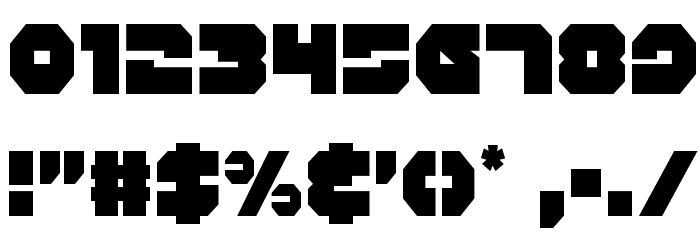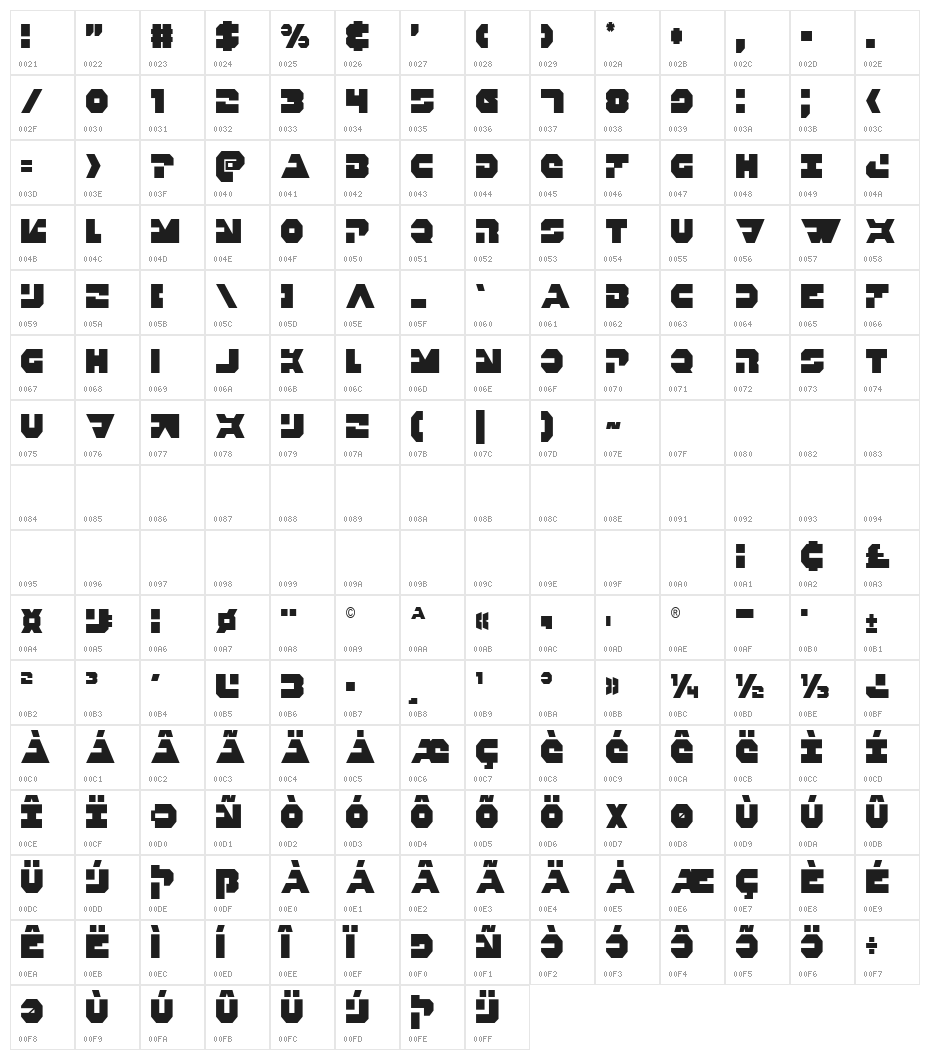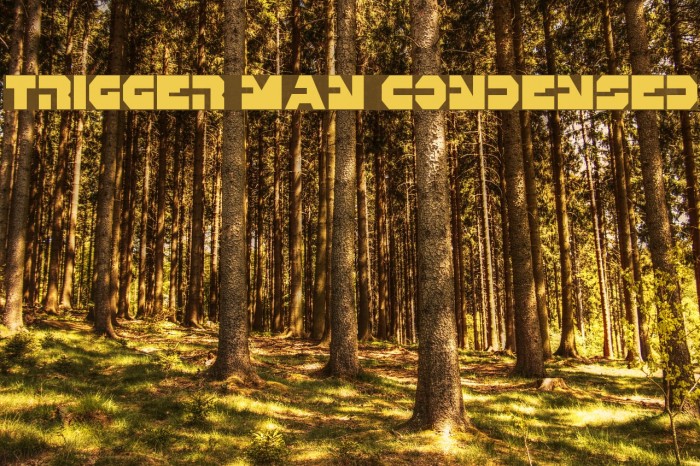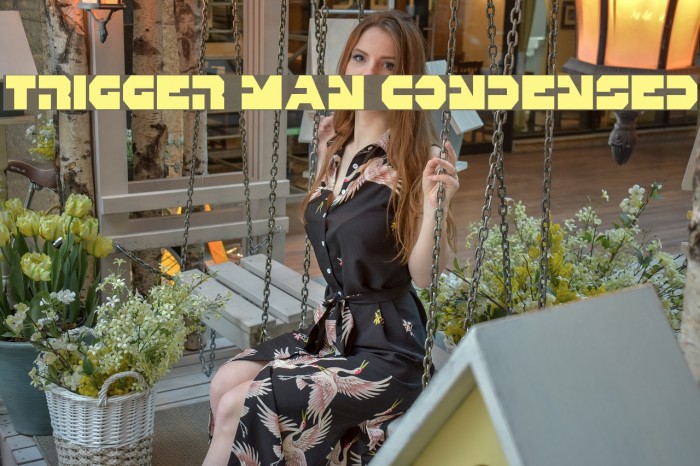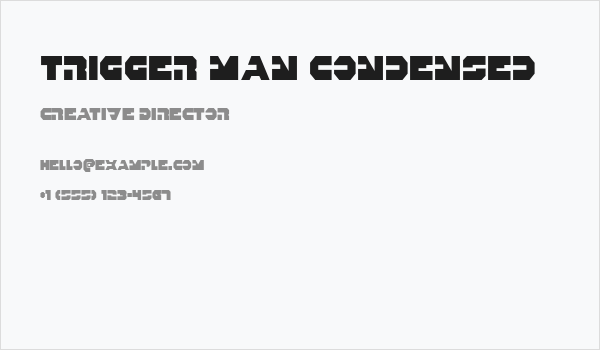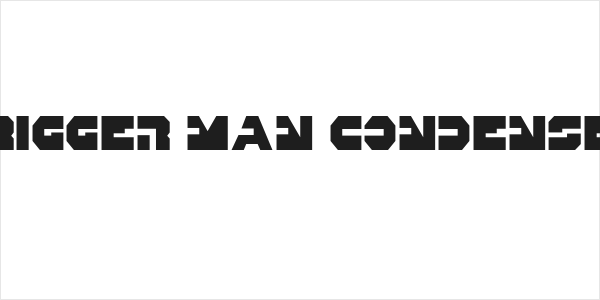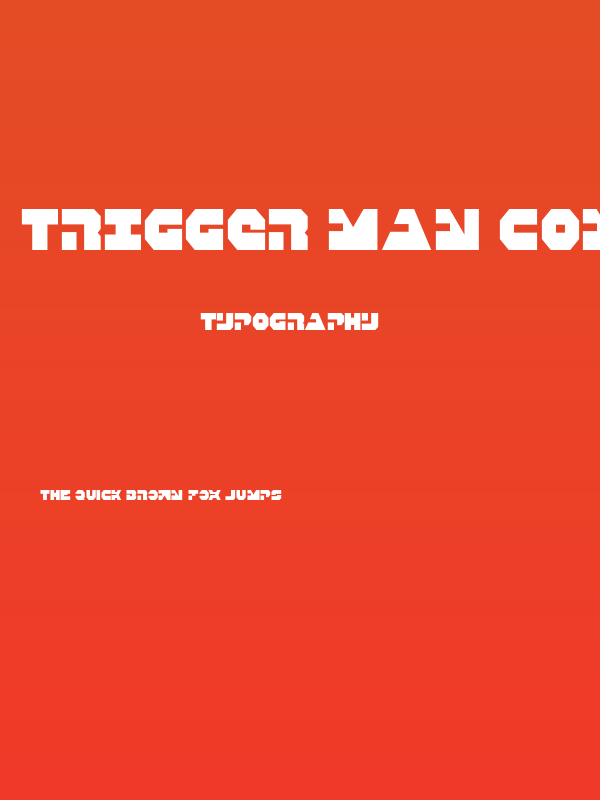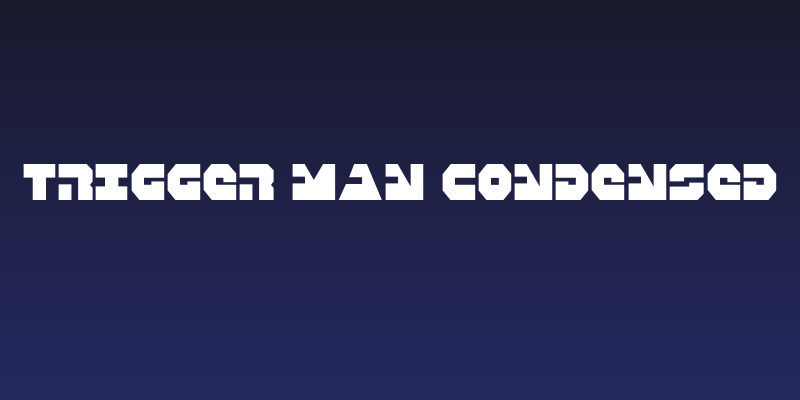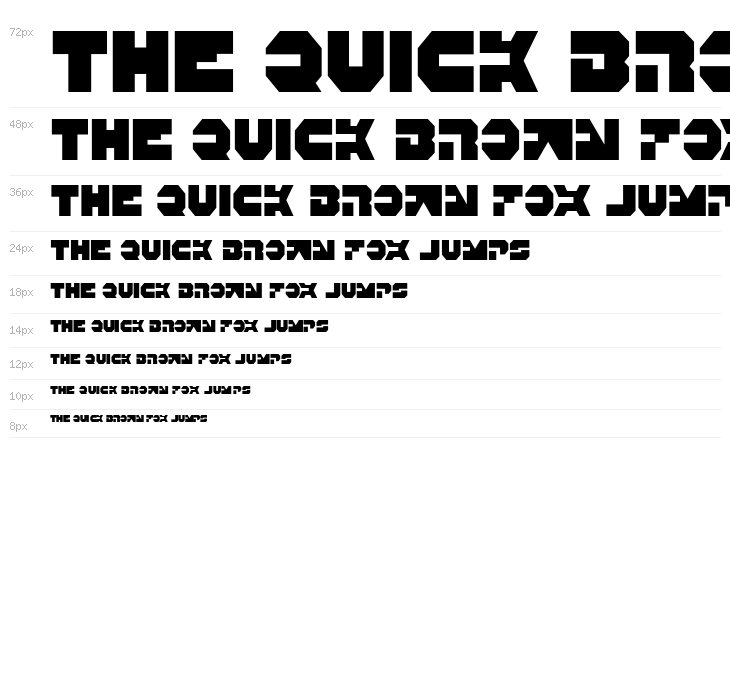
Trigger Man Condensed Font
Trigger Man Condensed Description
This font features a bold, geometric design with strong, angular lines and a condensed structure. The characters are constructed with sharp edges and a uniform thickness, creating a striking and modern appearance. The uppercase letters are particularly prominent, with a block-like aesthetic that conveys strength and impact. The numerals and special characters maintain this cohesive style, ensuring consistency across all text elements. The overall look is futuristic and industrial, making it suitable for attention-grabbing designs.